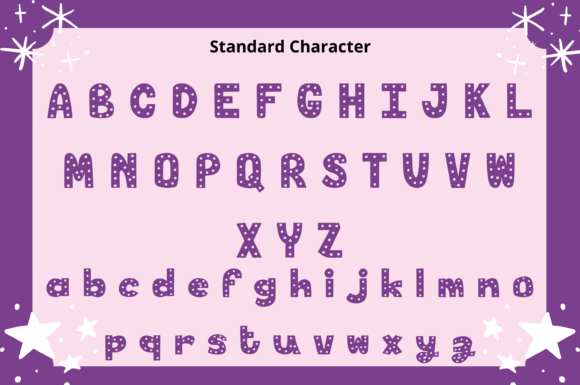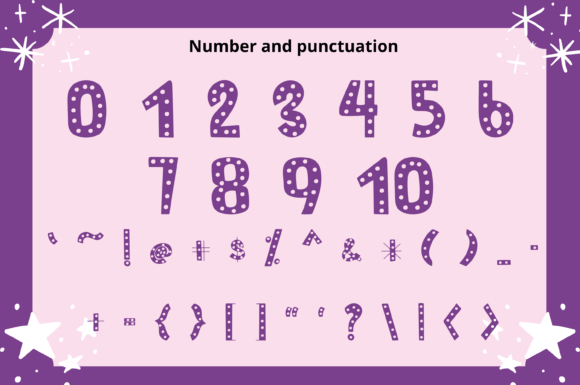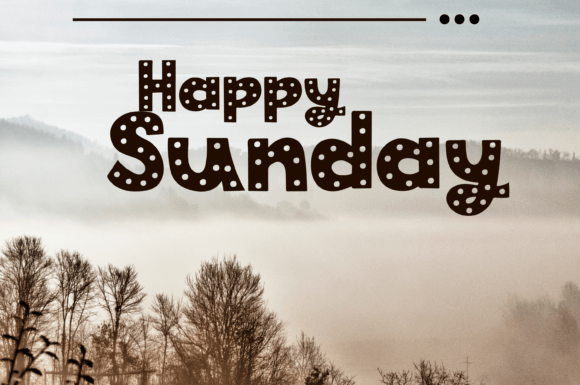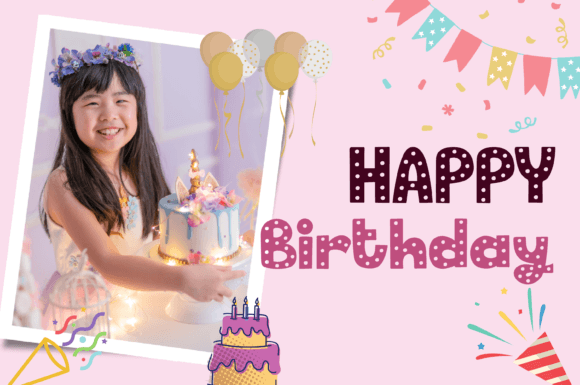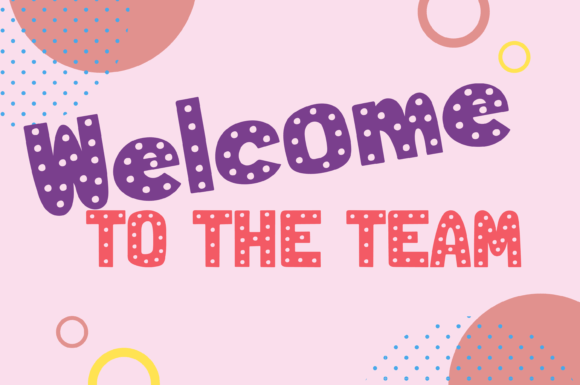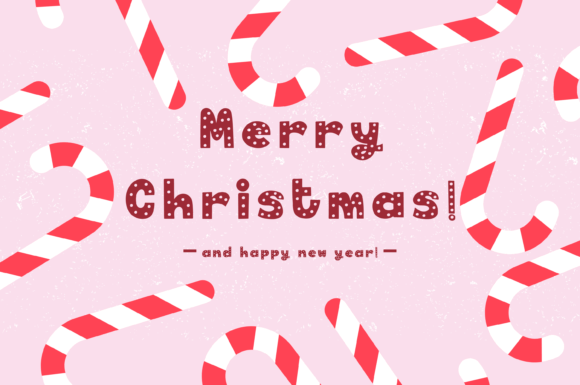
Diamond Blink Font: Adding a Touch of Whimsy to Your Designs
Diamond Blink is a whimsical and fun display font that can add a touch of magic to your creative projects. With its unique and eye-catching design, it’s perfect for making your designs stand out from the crowd. In this article, we’ll take a closer look at the Diamond Blink font, its features, and how you can use it to elevate your designs.
What is Diamond Blink Font?
Diamond Blink is a display font that is designed to add a touch of whimsy and fun to your designs. Its unique design makes it perfect for a wide range of projects, from creative crafts to digital designs. The font is characterized by its bold and eye-catching letters, which are sure to grab the attention of your audience.
Key Features of Diamond Blink Font
- Whimsical Design: Diamond Blink has a unique and whimsical design that sets it apart from other fonts.
- Fun and Playful: The font has a fun and playful feel to it, making it perfect for designs that require a touch of personality.
- Display Font: Diamond Blink is a display font, making it perfect for headlines, titles, and other display text.
- Highly Versatile: The font can be used for a wide range of projects, from digital designs to craft projects.
How to Use Diamond Blink Font
Diamond Blink font can be used for a wide range of projects, including:
- Digital Designs: Use Diamond Blink font to add a touch of whimsy to your digital designs, such as social media graphics, blog posts, and website headers.
- Craft Projects: The font is perfect for craft projects, such as scrapbooking, card making, and DIY signs.
- Signage: Use Diamond Blink font to create eye-catching signage for your business or event.
- Packaging: Add a touch of personality to your product packaging with Diamond Blink font.
Tips for Using Diamond Blink Font
- Use it Sparingly: While Diamond Blink font is eye-catching, it’s best to use it sparingly to avoid overwhelming your design.
- Pair it with Other Fonts: Pair Diamond Blink font with other fonts to create a unique and interesting design.
Diamond Blink font is a fun and whimsical display font that can add a touch of magic to your designs. With its unique design and high versatility, it’s perfect for a wide range of projects. Whether you’re a designer or a crafter, Diamond Blink font is sure to become a favorite in your collection. So why not give it a try and see how it can make your designs stand out?
Overall, Diamond Blink font is a great addition to any design or craft project. Its unique and whimsical design makes it perfect for adding a touch of personality to your work. So why not give it a try and see how it can make your designs stand out?